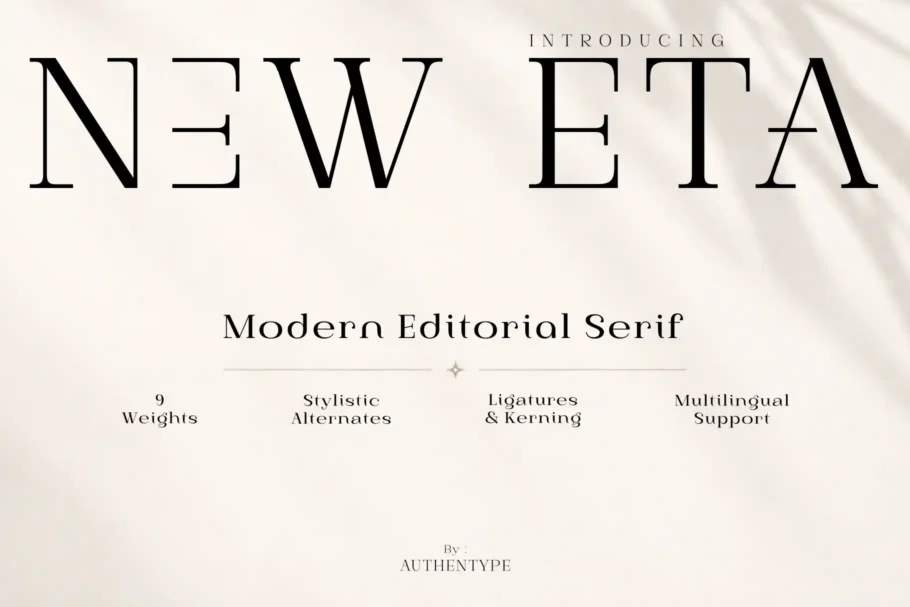
New Eta Free Font
New Eta Editorial Serif — 9 Weight Font Family
New Eta, a modern high-contrast serif family created for expressive editorial typography and sophisticated brand communication.
New Eta draws inspiration from classic fashion typography while introducing a more contemporary and sculptural personality. Elegant letter proportions are paired with dramatic stroke contrast, distinctive terminals, fluid curves, and carefully designed alternative characters.